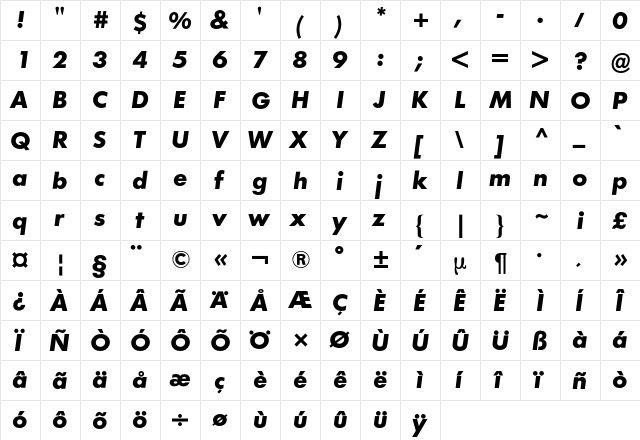
Futura BQ Regular
Design Context for Futura BQ Typeface
Futura BQ channels digital-age aesthetics through its sharp, structured letterforms — ideal for brands that want to signal innovation.
Pro Tip: Use Futura BQ in combination with a neutral sans for body text. Let it define the brand voice in headlines while keeping reading comfortable elsewhere.